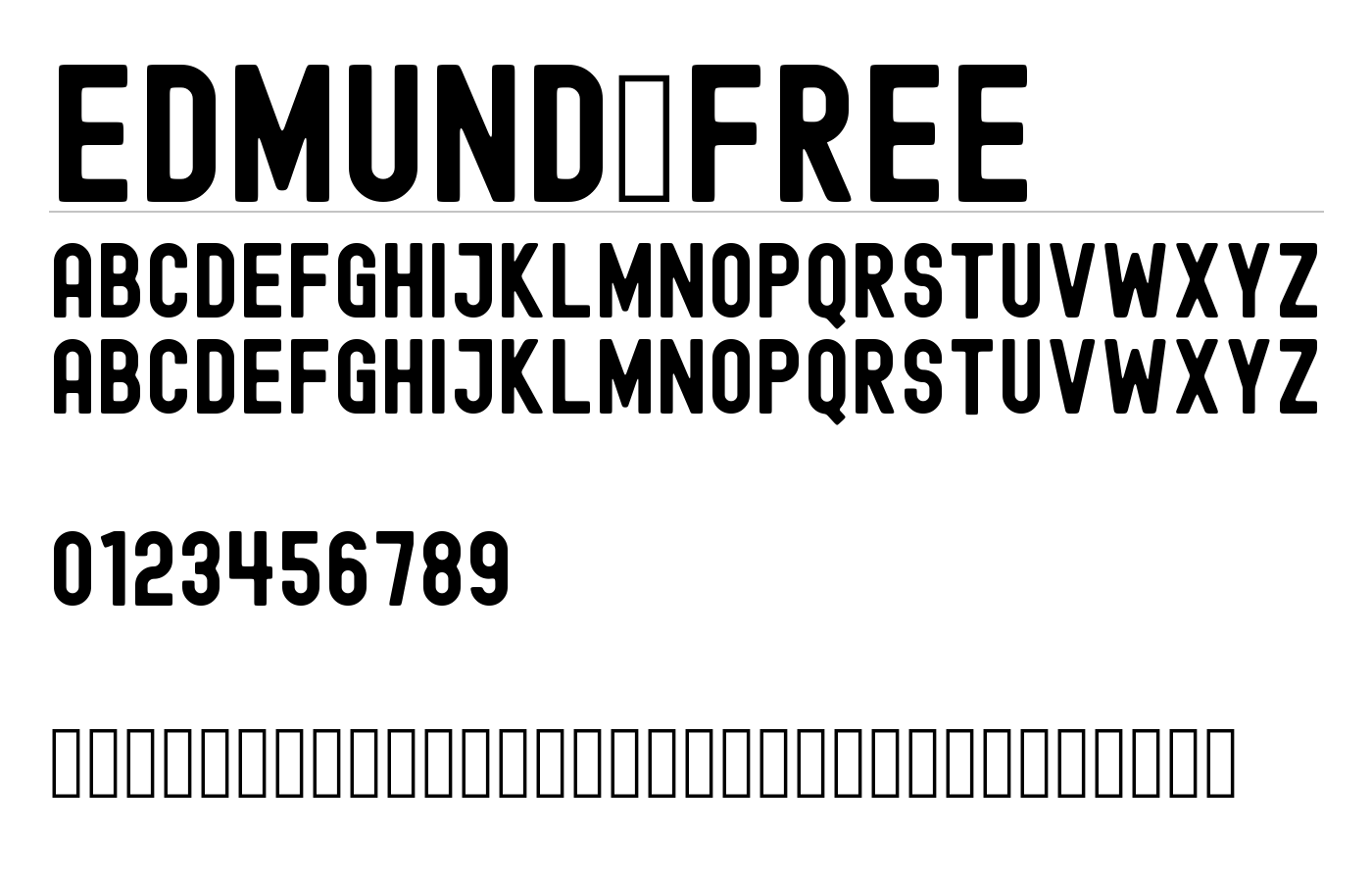
Edmund is a bold, condensed sans serif font with a modern and industrial feel. Its tall x-height and uniform stroke width create a strong, confident appearance, making it ideal for impactful headlines, logos, and branding that require a clean yet distinctive look. This font works well where space is limited but legibility and presence are essential.
Edmund Font
About Edmund Font